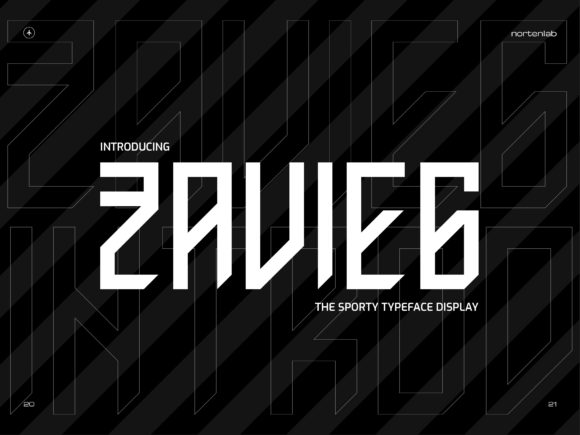
Embark on a Typographic Odyssey with Zavieg: The Epitome of Modernity and Style
In the realm of digital artistry, fonts hold the power to transform the mundane into the magnificent, to elevate the ordinary into the extraordinary. Zavieg, a creation of nortenlab, is a display font that personifies this transformative power, beckoning you to explore the boundless possibilities of visual expression.
Zavieg's essence lies in its captivating dance of sharp angles and geometric precision, reminiscent of a cityscape illuminated by a thousand stars. Its meticulously crafted letterforms exude a sense of modernity and sophistication, making it the perfect choice for designers seeking to leave an indelible mark on the digital landscape.
Picture this: Zavieg adorning your web designs, lending an air of sleek elegance to your online presence. Imagine it gracing your business cards, commanding attention with its bold and distinctive character. Envision it breathing life into your marketing materials, captivating audiences with its unwavering allure.
Zavieg's versatility knows no bounds. Its unique charm lends itself seamlessly to a plethora of applications, effortlessly enhancing logos, posters, social media graphics, and more. Its adaptability makes it a font for all seasons, capable of effortlessly transitioning from formal settings to casual environments without losing its innate charisma.
Step into the world of Zavieg and discover a font that transcends the ordinary, a font that ignites creativity and fuels imagination. Let your designs soar to new heights, captivating audiences with every stroke, every letter, every word. Zavieg awaits you, ready to unleash the boundless potential within your creative vision.
Join the ranks of discerning designers who have embraced Zavieg's allure, harnessing its power to forge unforgettable visual experiences. Embrace Zavieg today and embark on a typographic journey that will leave you spellbound.